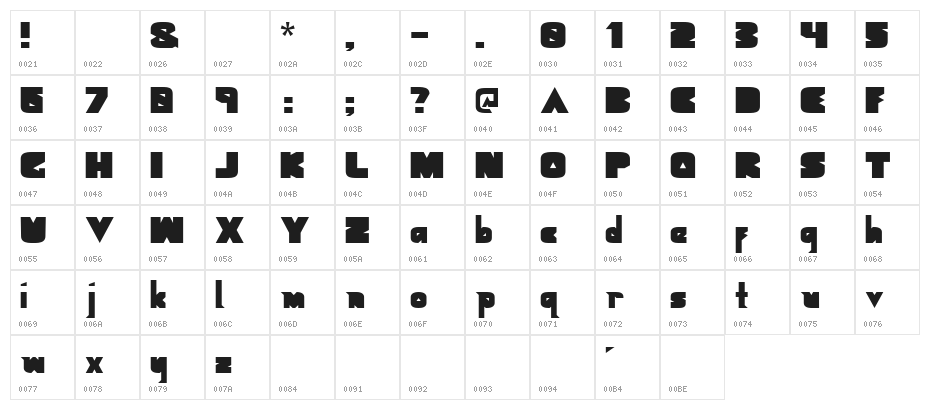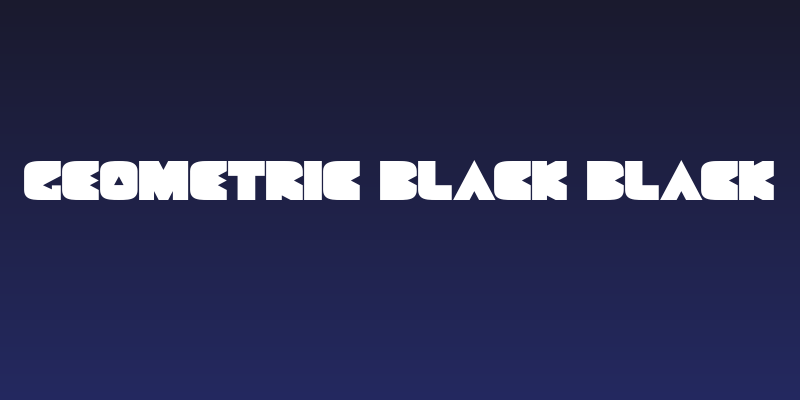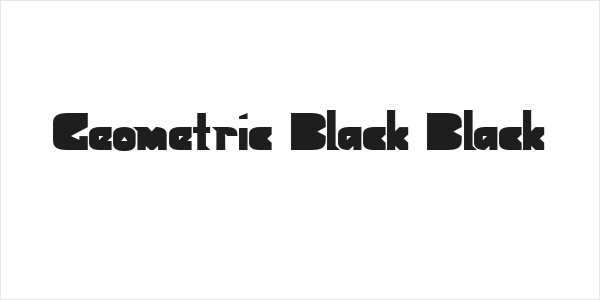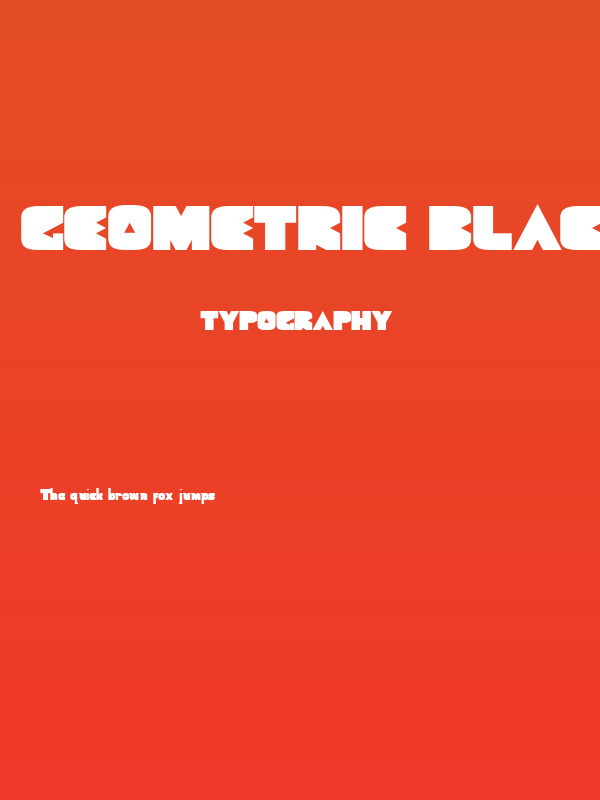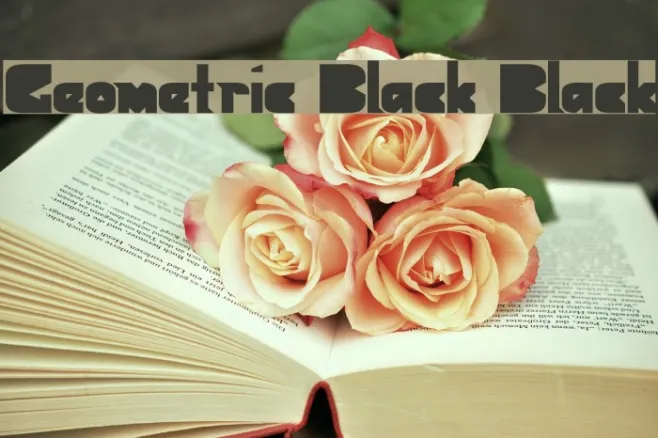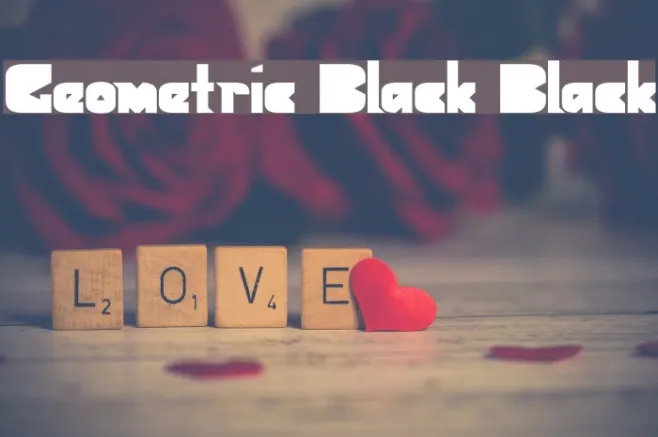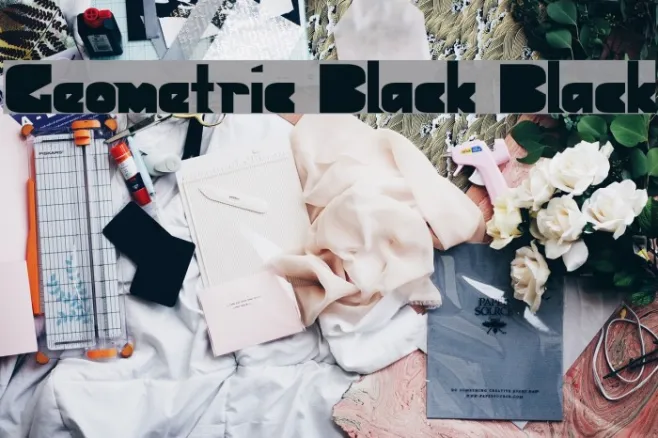
Geometric Black Black Font
Geometric Black Black Description
This font features a bold, geometric style with strong, angular lines and a heavy weight. The characters are constructed with a block-like appearance, giving them a modern and assertive look. The uppercase and lowercase letters maintain a consistent width, creating a uniform and cohesive visual impact. The numbers and special characters follow the same geometric design, ensuring a seamless integration across all text elements. The font's boldness and unique shape make it ideal for attention-grabbing designs.
| Proposed Projects | Ideal for posters, headlines, branding, and any project requiring a strong visual impact. |